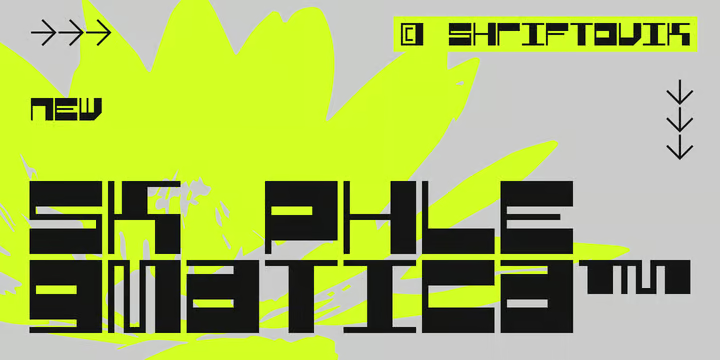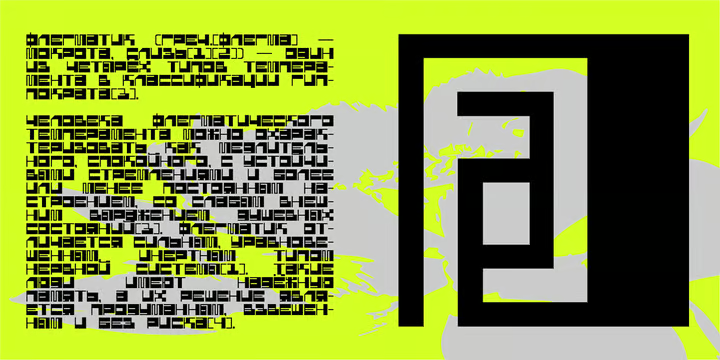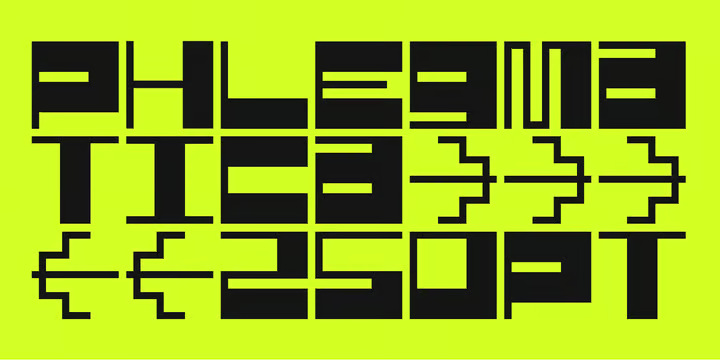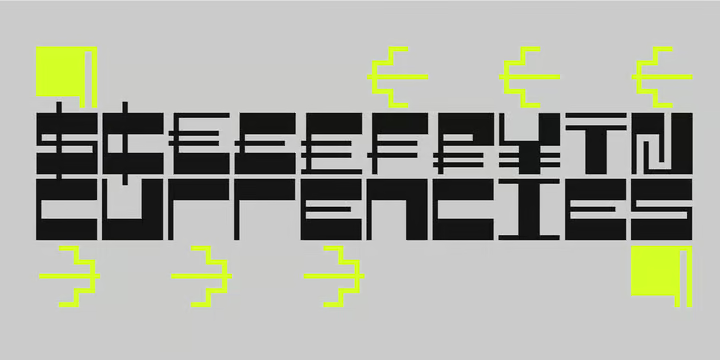
SK Phlegmatica Font
SK Phlegmatica™ is a heavy geometrical grotesque with an industrial spirit. The typeface is built on a contrast between thin and wide lines. Such contrast creates certain frames, which in turn give room for experiments with the rhythm of symbols. The monumental shape of the typeface with the rhythmic contrast of the characters creates a unique pattern in the text line. In addition to the visual advantages, the typeface has technological advantages. SK Phlegmatica is a monospaced multilingual typeface that supports more than 100 Latin and Cyrillic languages. The typeface is great for highlighting titles, working with posters, and web design.